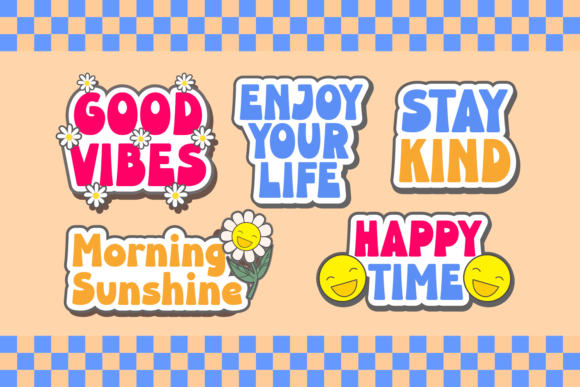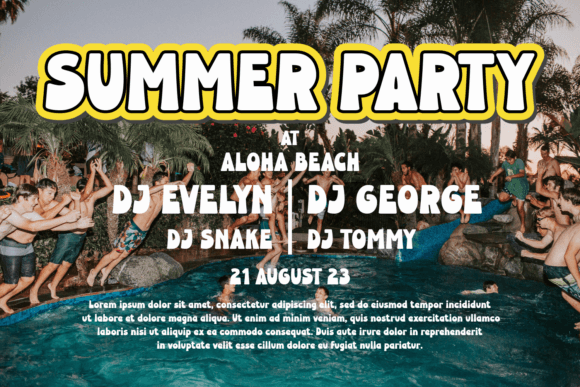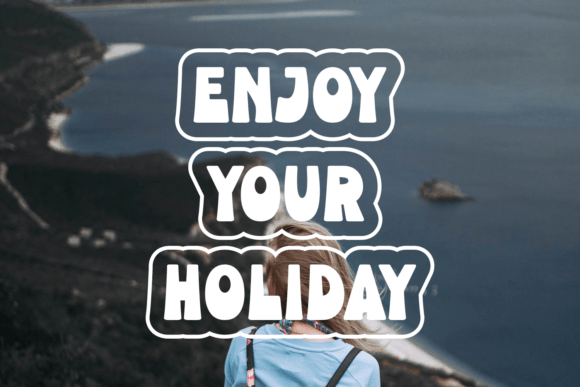
Introduction to Freaky Sunday Font
Who hasn’t had a moment of creative inspiration strike, only to struggle finding the perfect design resource to bring their vision to life? For many designers, this struggle is a familiar one. But what if you stumbled upon a font that not only captures the essence of your idea but also elevates it to new heights?
Enter the Freaky Sunday Font, a dynamic and captivating typeface that’s sure to add a touch of funk and personality to any creative project. With its fluid and dynamic strokes, this font is the perfect choice for designers looking to create high-quality designs that demand attention.
Whether you’re working on an album cover, poster, or advertisement, the Freaky Sunday Font is an invaluable asset that’s sure to deliver. And the best part? It’s available for free download, complete with a transparent background for seamless integration into your design. So why settle for a generic font when you can unleash the full potential of your creativity with the Freaky Sunday Font?
Key Features of Freaky Sunday Font
- Unique, hand-drawn design perfect for creative projects requiring a touch of whimsy.
- Transparent background allows for easy layering and customization in graphic design projects.
- High-resolution design (300 DPI) ensures crisp, clear text in both print and digital applications.
- Designed to be versatile and adaptable, making it suitable for a wide range of creative projects and design styles.
- Perfect for adding a fun, playful touch to designs, from posters and flyers to social media graphics and more.
Honest Review: Freaky Sunday Font
As a designer, I’m always on the lookout for unique and high-quality design resources to elevate my creative projects. The Freaky Sunday Font has caught my attention, and I’m excited to share my thoughts on it.
- ✨ It has a high-quality, transparent background, allowing for seamless blending with other design elements.
- ✨ The font’s quirky and playful design makes it perfect for creative projects that require a touch of whimsy.
- ⚠️ The font may not be suitable for corporate or formal projects, as its playful design may not convey the right tone.
- ⚠️ Some users may find the font’s unusual design challenging to read or work with, especially for extended periods.
Overall, I’m impressed with the Freaky Sunday Font’s unique design and high-quality features. While it may not be suitable for every project, it’s an excellent choice for those looking to add a touch of creativity and playfulness to their design work.
How to Use Freaky Sunday Font
The Freaky Sunday Font is a unique and quirky design resource that can add a touch of personality to your creative project. With a high-quality, transparent background, this font is perfect for adding a pop of color and whimsy to your designs.
To get the most out of the Freaky Sunday Font, try combining it with other design elements, such as bold shapes and bright colors. Experiment with different font sizes and arrangements to create visually appealing graphics.
The Freaky Sunday Font is perfect for creating eye-catching social media graphics, promotional materials, and branding elements. Its unique design and high-quality transparent background make it an excellent choice for designers who want to add a touch of personality to their projects.